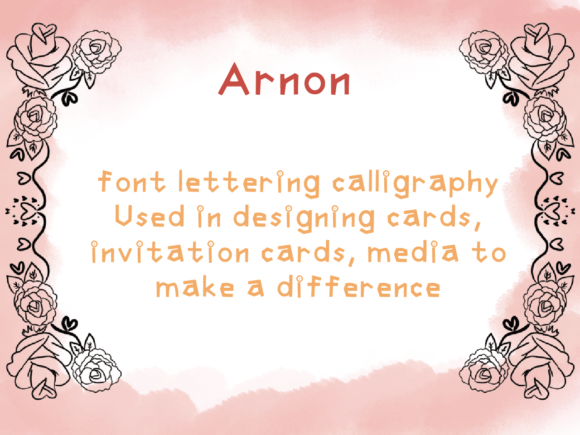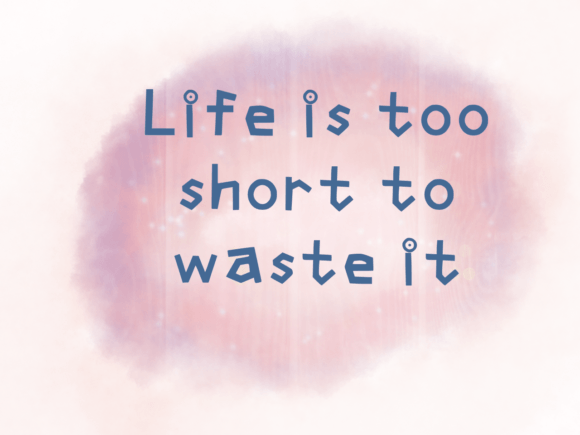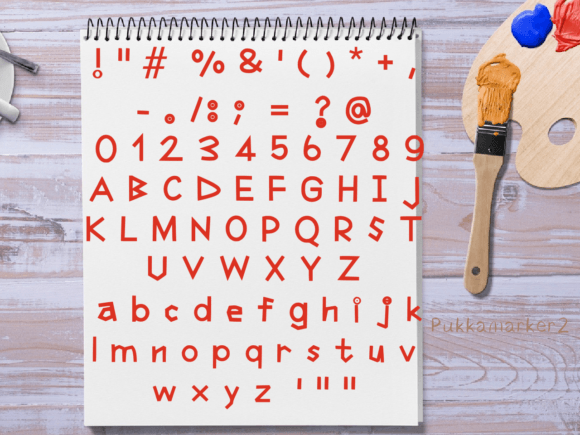
Introducing Arnon Font: The Perfect Blend of Sleek and Playful
Are you tired of using the same old fonts in your designs? Look no further than Arnon Font, a sleek and creative display font that’s sure to take your work to the next level. With its unexpectedly fun characters and friendly look, Arnon is the perfect complement to your most creative design ideas.
What Makes Arnon Font So Special?
Arnon Font is a unique and versatile font that’s designed to add a touch of personality to any design project. Its sleek and modern aesthetic makes it perfect for use in a variety of applications, from branding and advertising to packaging and web design.
One of the standout features of Arnon Font is its fun and playful characters. Each letter is carefully crafted to add a touch of whimsy and personality to your designs, making it perfect for use in projects where you want to add a bit of flair and creativity.
The Benefits of Using Arnon Font
So why should you choose Arnon Font for your next design project? Here are just a few benefits of using this amazing font:
- Unique and Creative: Arnon Font is a one-of-a-kind font that’s sure to make your designs stand out from the crowd. Its unique and creative characters will add a touch of personality to any project.
- Versatile: Arnon Font is a versatile font that can be used in a variety of applications, from print to digital. It’s perfect for use in branding, advertising, packaging, and more.
- Easy to Read: Despite its creative and playful aesthetic, Arnon Font is still easy to read and understand. This makes it perfect for use in projects where you need to communicate a message clearly and effectively.
- Customizable: Arnon Font is highly customizable, allowing you to adjust the font to fit your specific design needs. You can use it in a variety of sizes and colors to create a unique look that’s all your own.
How to Use Arnon Font in Your Designs
So how can you use Arnon Font in your designs? Here are a few ideas to get you started:
- Branding: Use Arnon Font to create a unique and memorable brand identity. Its sleek and modern aesthetic makes it perfect for use in logos, business cards, and other branding materials.
- Advertising: Arnon Font is a great choice for use in advertising, particularly in headlines and titles. Its creative and playful characters will help grab the attention of your audience and make your message stand out.
- Packaging: Add a touch of personality to your product packaging with Arnon Font. Its fun and whimsical characters will help your product stand out on store shelves and make it more memorable to customers.
- Web Design: Arnon Font is also a great choice for use in web design. Its clean and modern aesthetic makes it perfect for use in website headers, titles, and other design elements.
Tips and Tricks for Getting the Most Out of Arnon Font
Here are a few tips and tricks for getting the most out of Arnon Font:
- Experiment with Different Sizes: Arnon Font looks great in a variety of sizes, from small and delicate to large and bold. Experiment with different sizes to find the one that works best for your design.
- Play with Color: Arnon Font is highly customizable, and one of the easiest ways to customize it is by changing the color. Try using different colors to create a unique look that’s all your own.
- Combine with Other Fonts: Arnon Font pairs well with a variety of other fonts, so don’t be afraid to experiment with different combinations. This can help add depth and interest to your designs.
| Author | Pukka De |
Arnon Font is a sleek and creative display font that’s perfect for designers and crafters who want to add a touch of personality to their work. With its unexpectedly fun characters and friendly look, Arnon is sure to complement your most creative design ideas. Whether you’re working on a branding project, advertising campaign, or packaging design, Arnon Font is a great choice. So why wait? Download Arnon Font today and start creating amazing designs that stand out from the crowd!